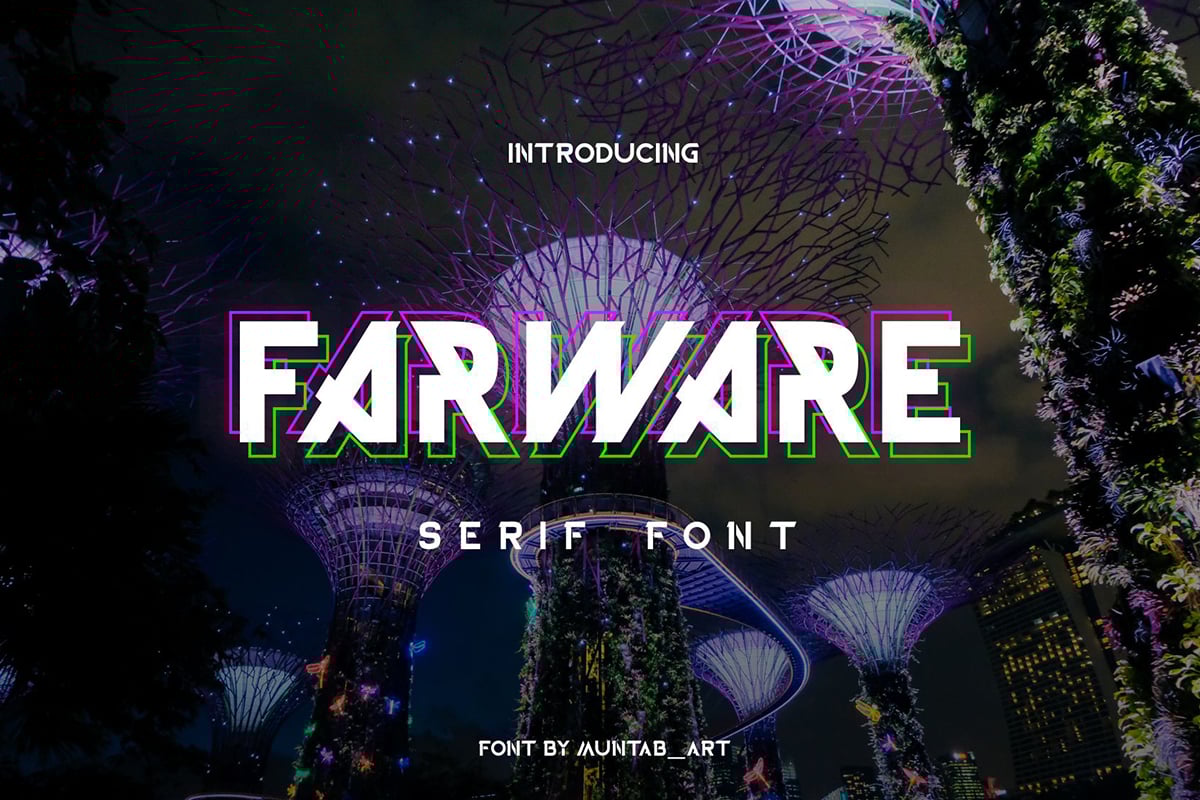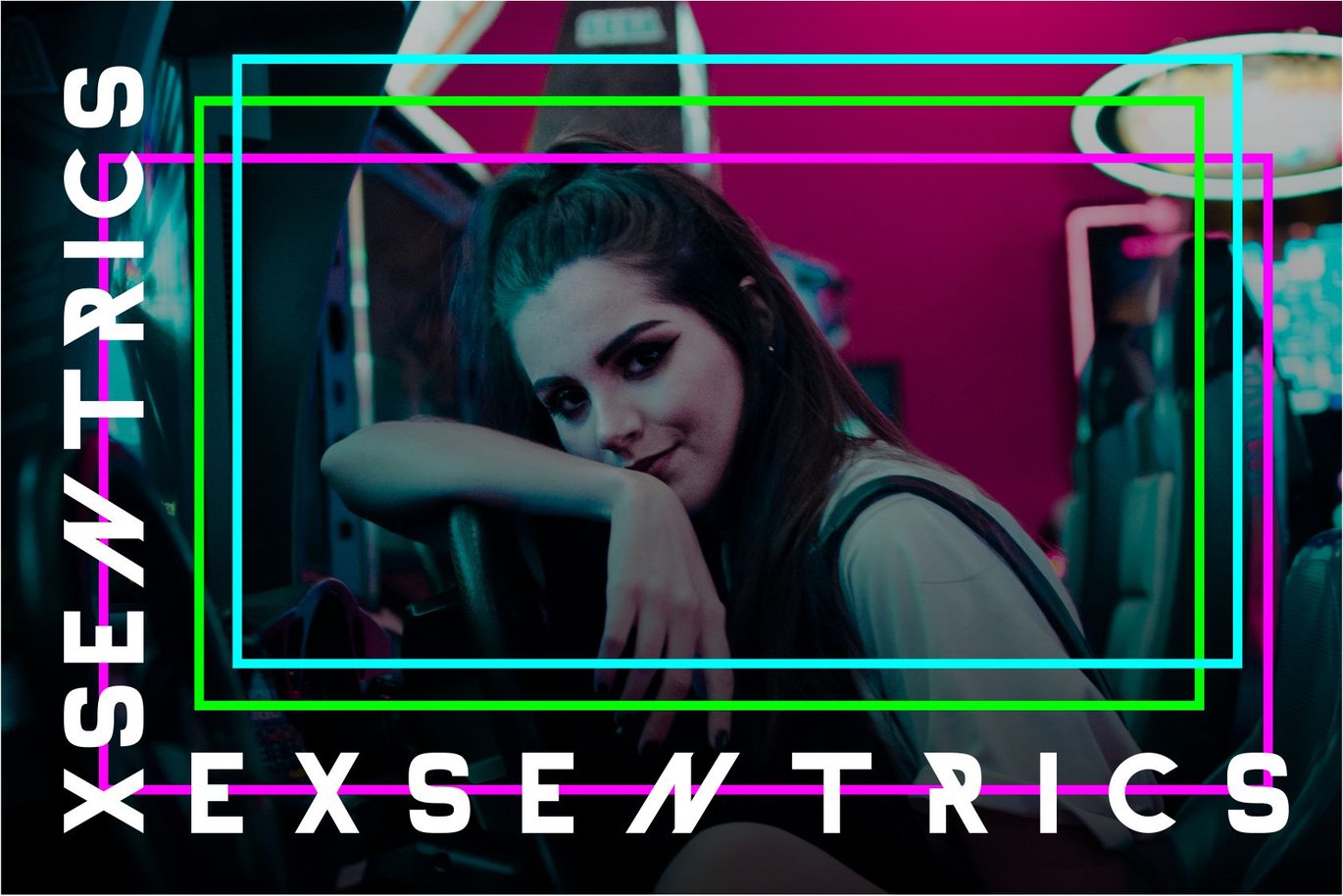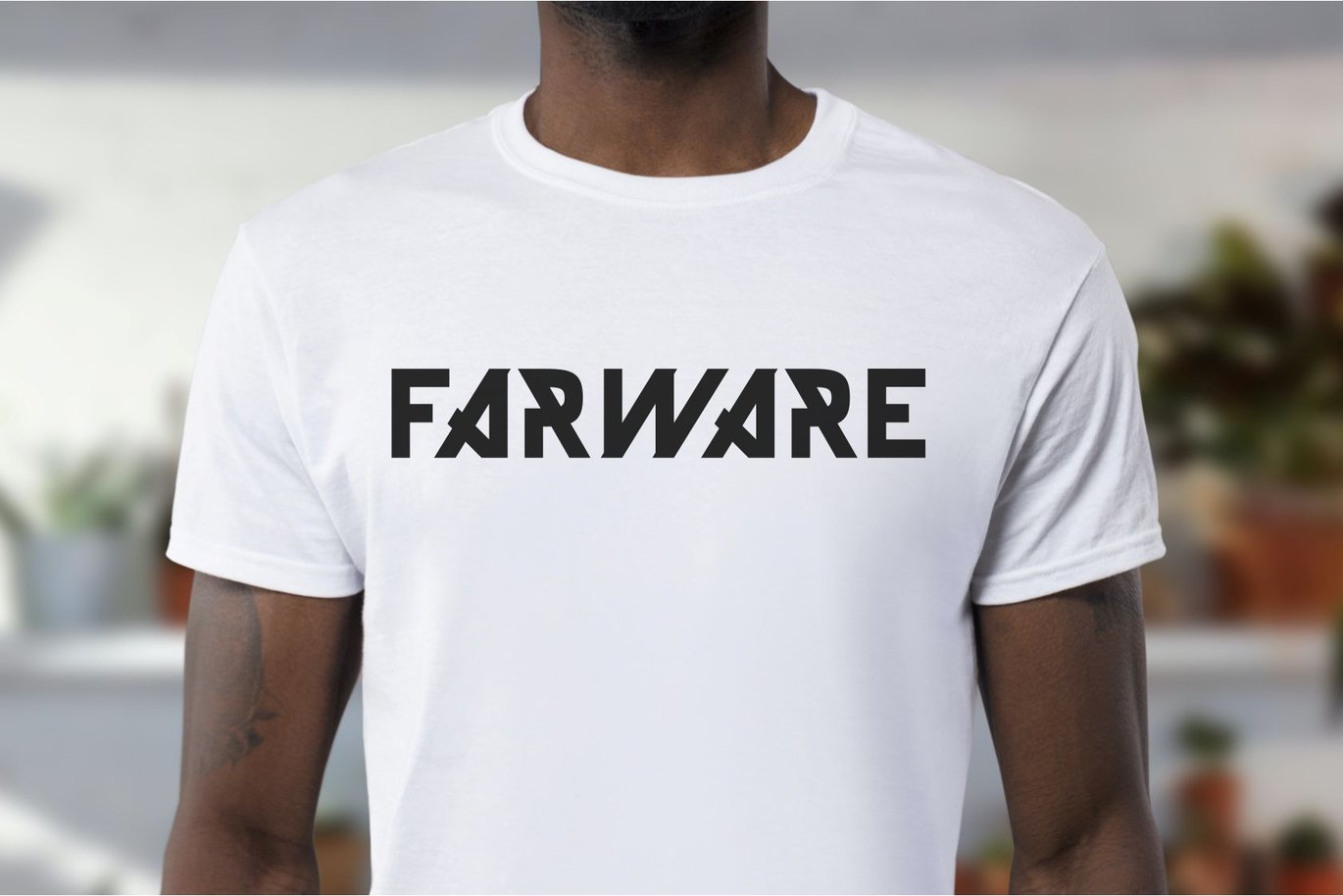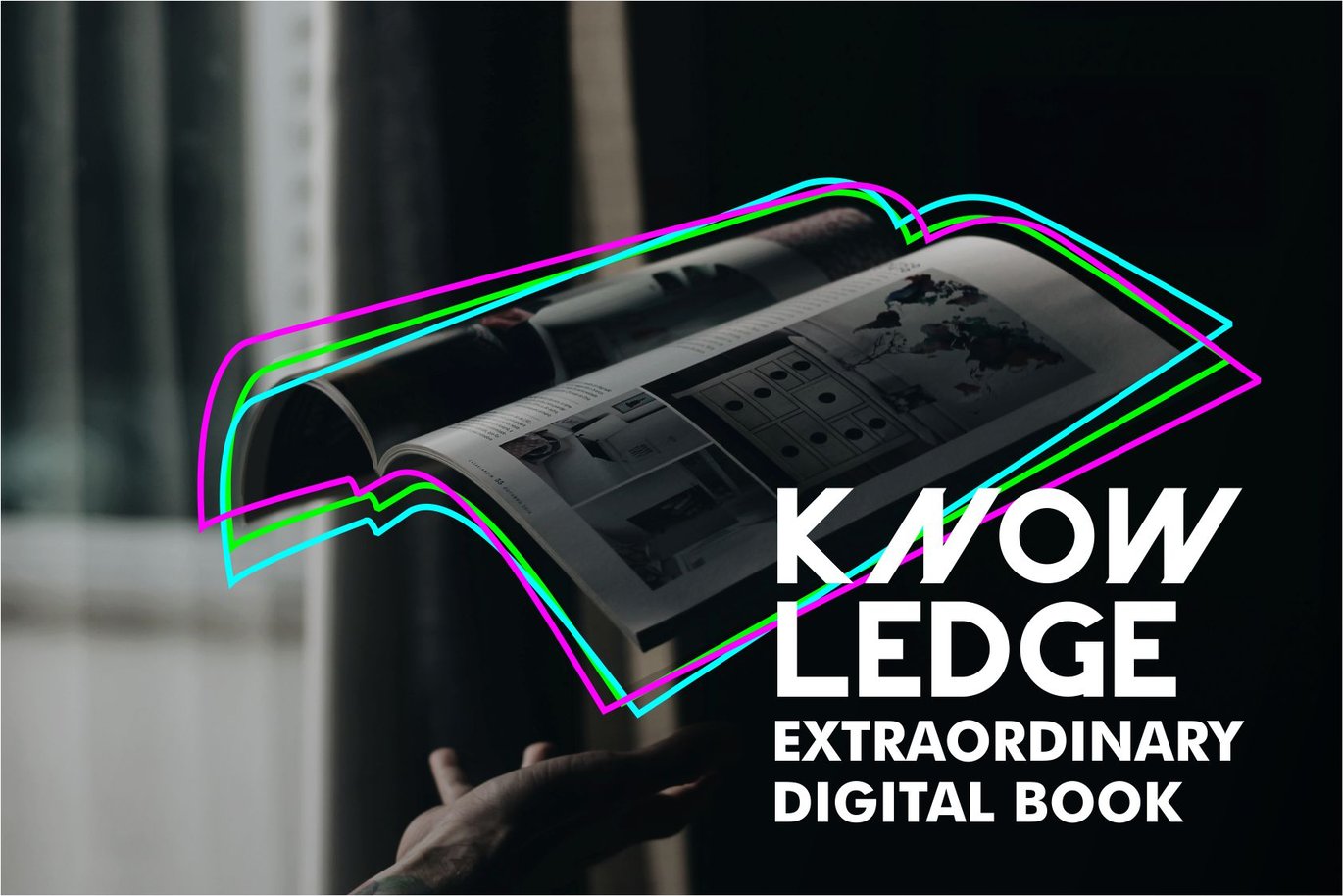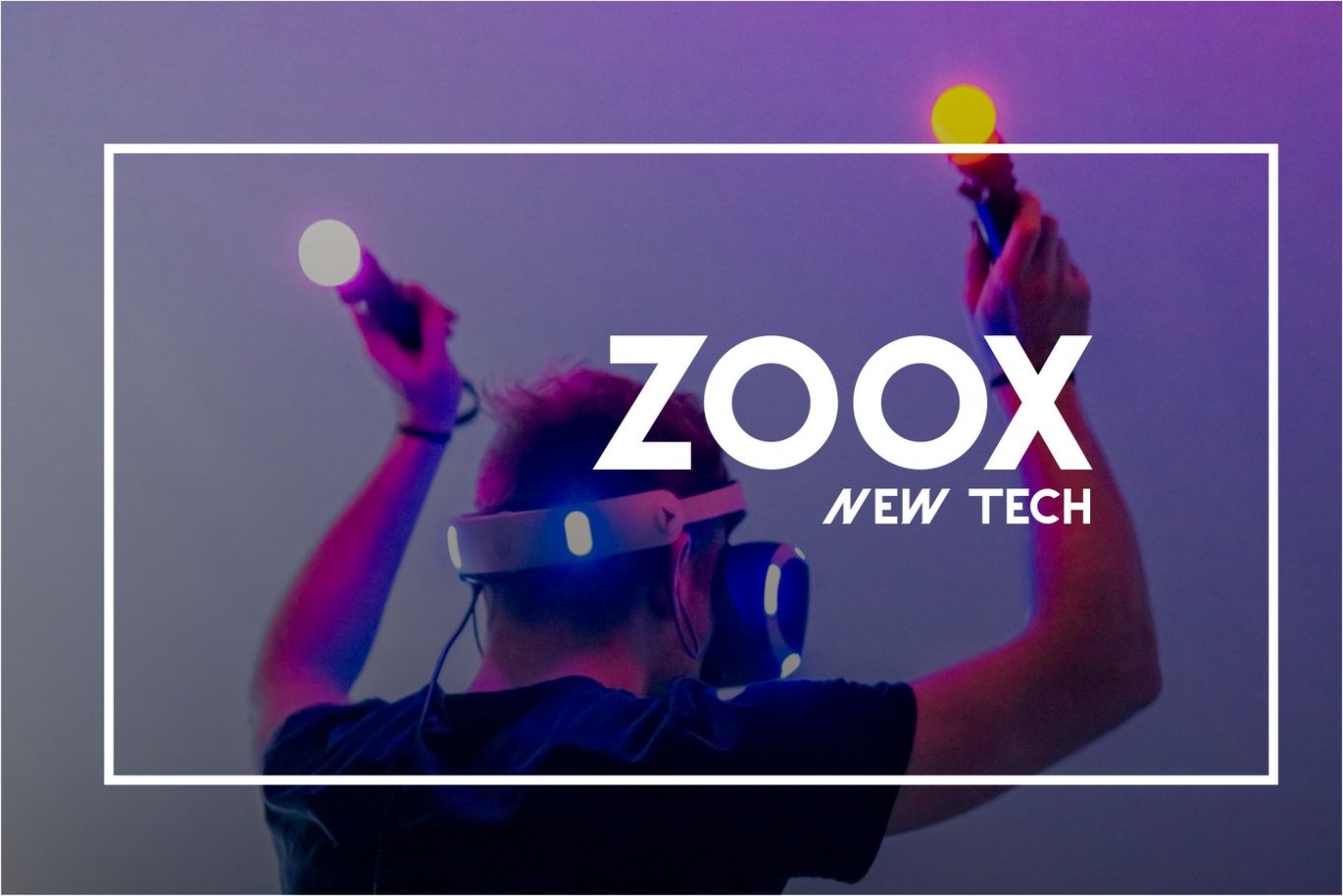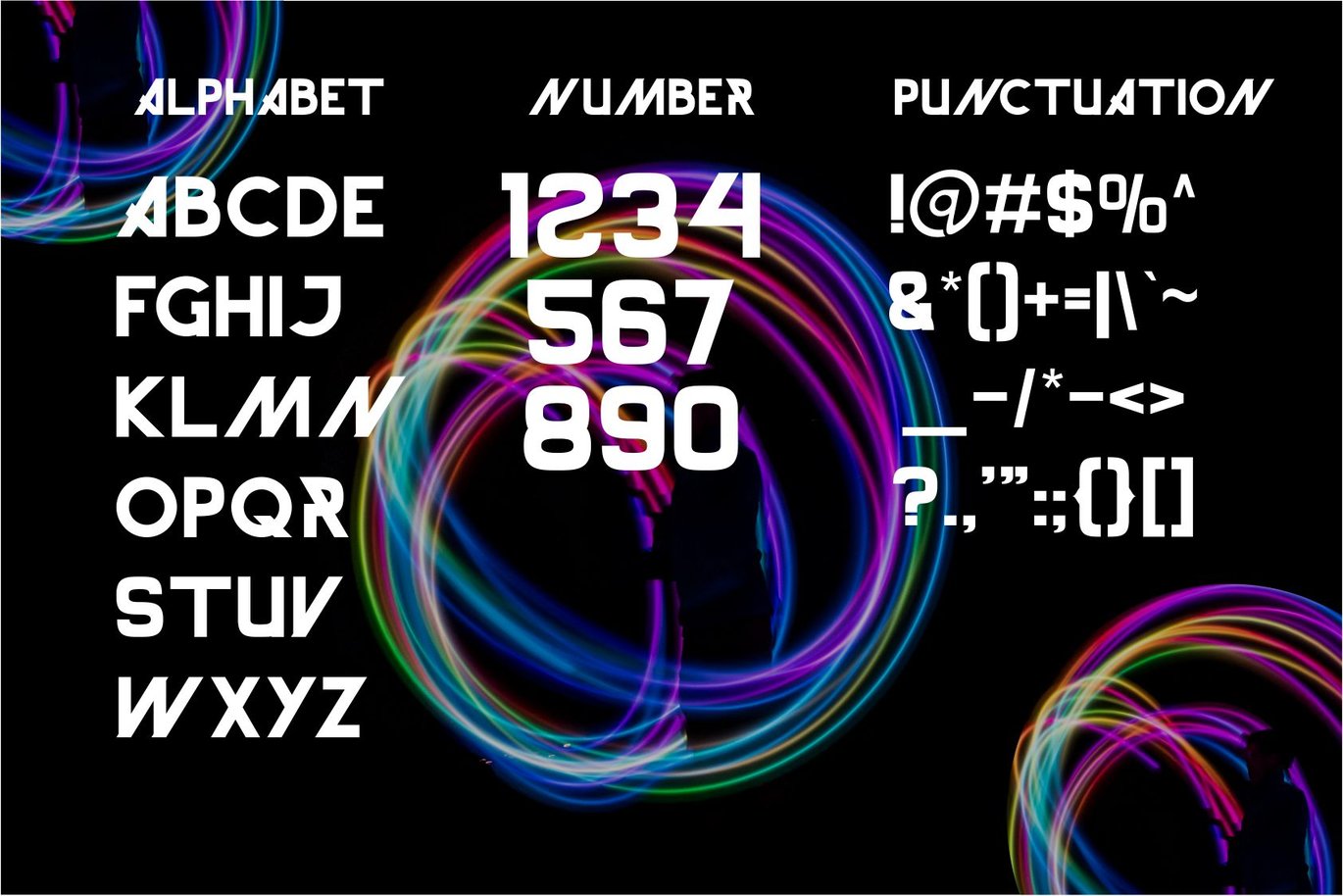
Farware | Modern Font
Farware fonts includes uppercase letters, numerals, a large range of punctuation. Sans serif font with modern style. Created for poster, web design, branding, illustrations, badges and some other works.